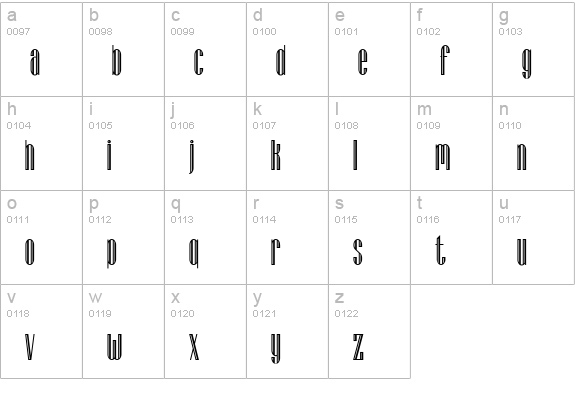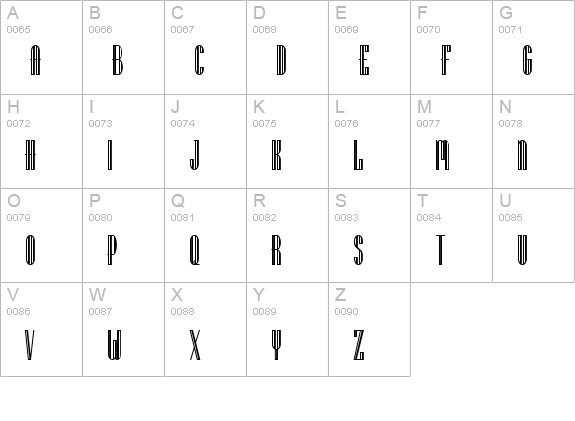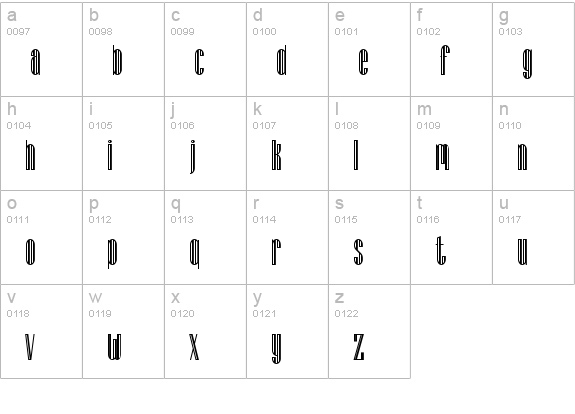
Lagniappe-Inline Font Details
Lagniappe-Inline font is a stunning display typeface that exudes elegance and sophistication. Its unique design features intricate lines and curves, giving it a touch of modernity and an air of refinement. The letters are delicately crafted, making each character stand out with its own grace and charm. This font is perfect for creating eye-catching headlines, captivating logos, and stylish branding materials. Its versatility allows it to be used in a wide range of design projects, from fashion magazines to luxury packaging. Lagniappe-Inline font effortlessly adds a touch of class and sophistication to any creative endeavor. The best part about Lagniappe-Inline font? It's absolutely free! That's right, you can download this amazing font for free at FontsMarket.com. Whether you're a professional designer or a passionate hobbyist, this font is a must-have in your design toolkit. Its effortless elegance and timeless appeal make it a true gem in the world of typography. Don't miss out on the opportunity to elevate your designs with Lagniappe-Inline font. Download it now for free at FontsMarket.com and let your creativity soar to new heights.